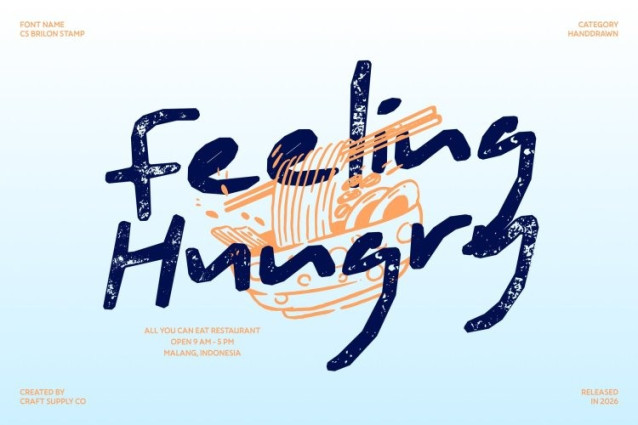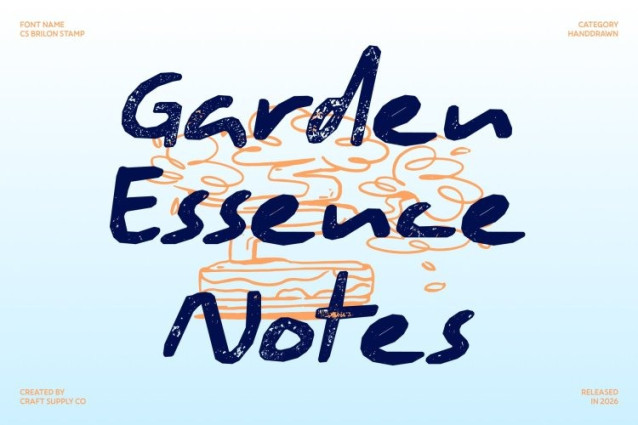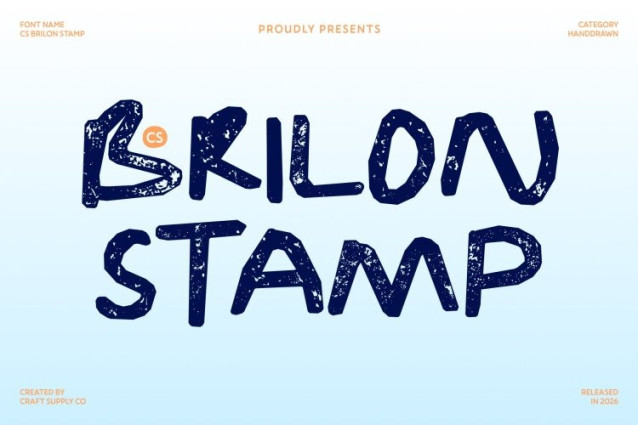
CS Brilon Stamp Font
CS Brilon Stamp Font – This is a hand-drawn sans serif font created to celebrate artistic freedom and organic expression. Designed with textured strokes and slightly imperfect edges, it delivers a raw, handmade feel that is authentic and full of personality. The stamped texture enriches its handcrafted appearance, giving each letter a tactile quality that feels expressive and alive.
Imperfect Edges with Natural Texture
The distinctive charm of this font lies in its irregular outlines and visible texture. Each character carries subtle variations that add warmth and depth, creating a natural rhythm across words and compositions. The stamped effect enhances the handcrafted aesthetic, giving the typeface a slightly rugged yet artistic surface while maintaining strong visibility for display use.
Artistic Style for Creative Storytelling
With its organic structure and expressive forms, thrives in imaginative design environments. It allows designers to communicate emotion, creativity, and individuality through typography. Whether used boldly in headlines or as a focal visual element, the font injects artistic energy that enriches storytelling and visual narratives.
Perfect for Posters, Packaging, and Creative Branding
This is ideal for posters, packaging, creative branding, editorial graphics, and promotional materials. Its handcrafted style works beautifully for artisanal products, indie brands, creative studios, and lifestyle projects. The combination of hand-drawn character and stamped texture makes it a powerful choice for designs that value authenticity, originality, and artistic personality.